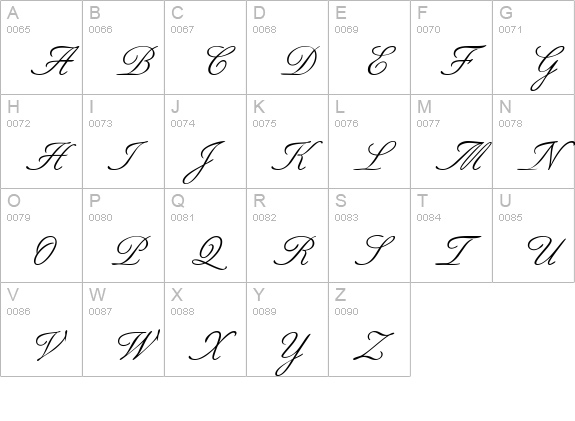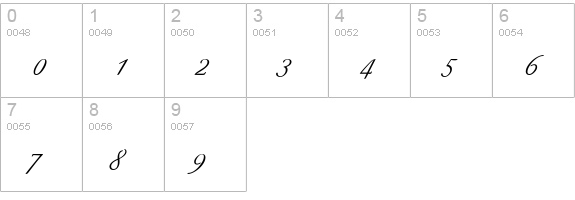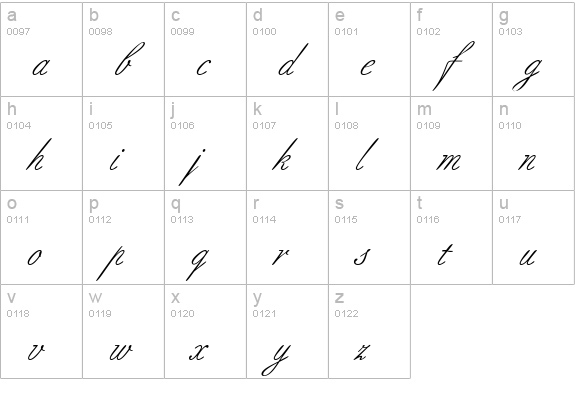
AldridgeScriptSSK Font Details
AldridgeScriptSSK is a stunning and elegant font that exudes sophistication and charm. With its intricate flowing lines and delicate curves, this script font is perfect for adding a touch of class to your projects. Whether you're designing wedding invitations, branding materials, or any other creative endeavor, AldridgeScriptSSK is sure to make a lasting impression. And the best part? AldridgeScriptSSK is available for free download at FontsMarket.com. You can easily access this beautiful font and elevate your designs without any cost. Don't miss out on the opportunity to enhance your projects with the timeless beauty of AldridgeScriptSSK. Download it now and let your creativity shine!